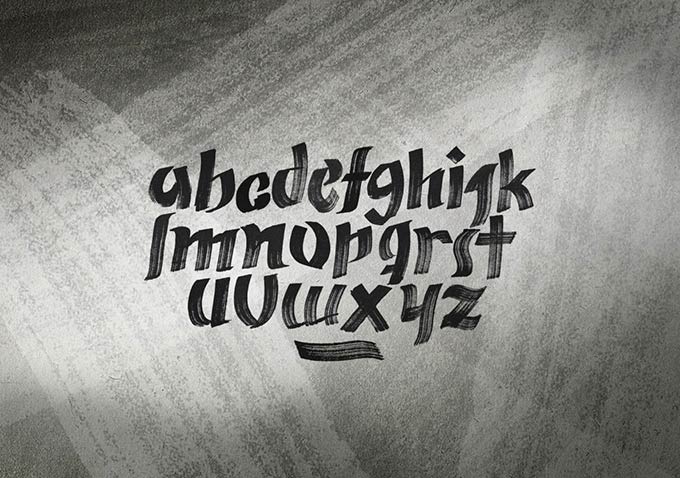
Zeyk is a wonderfully crafted handlettering font that is free to download. It has the raw, grungy feel with the lines of the brush strokes. It might not be suitable for any design applications, be certainly it can bring out tonnes of personality to your graphics or even motion graphics on street, hip hop related artworks.
- Designer: Juan Pablo Bello